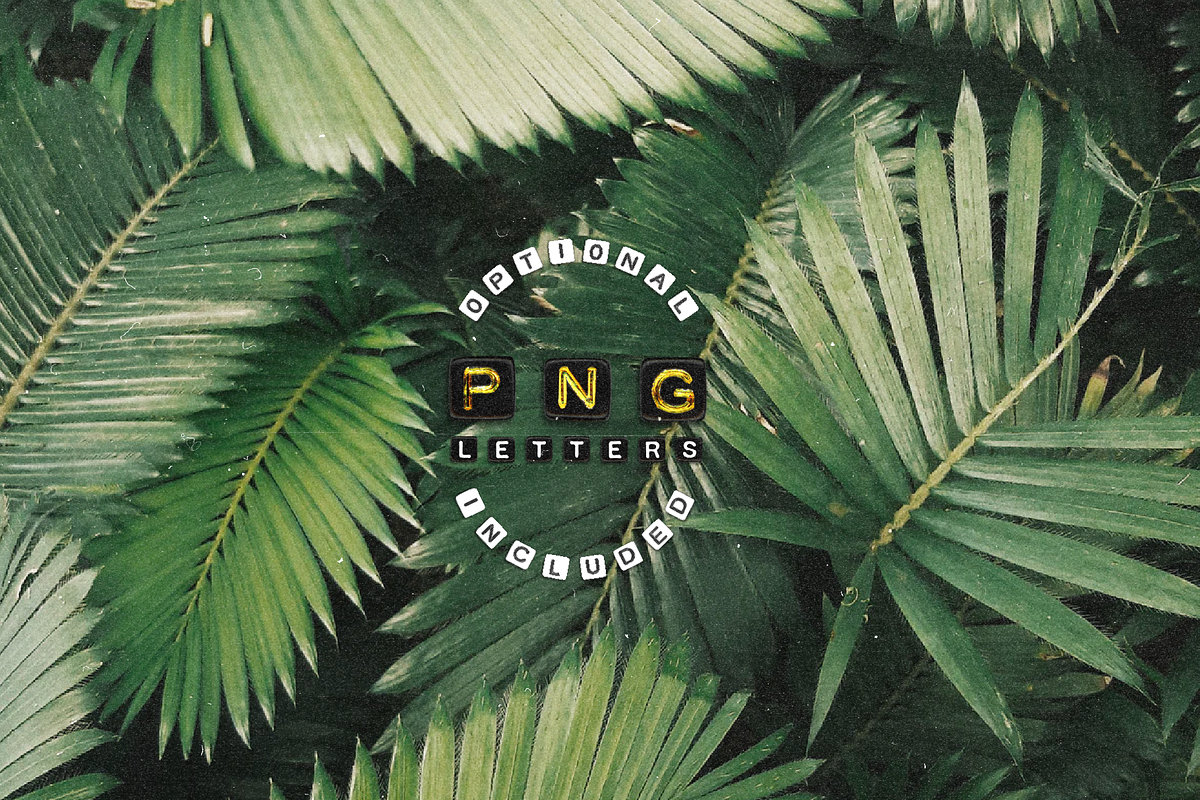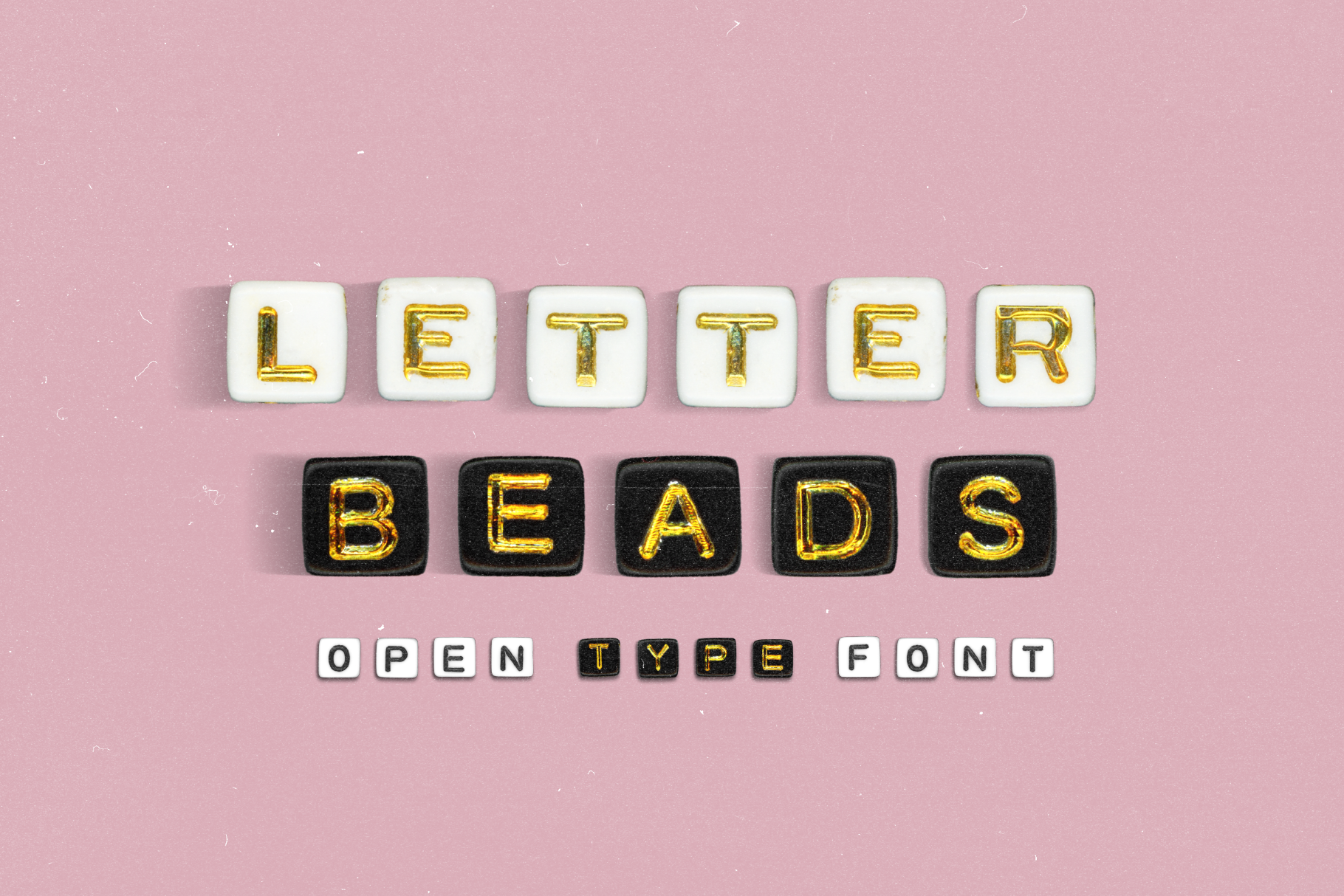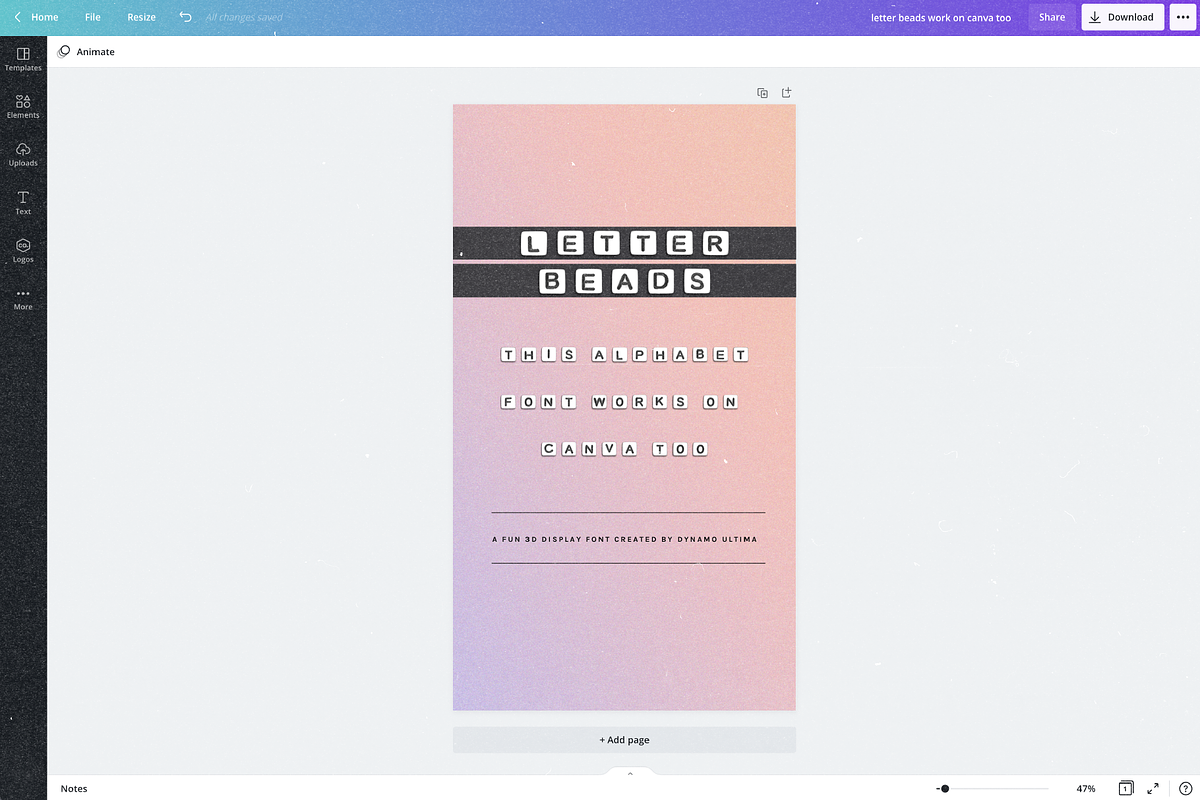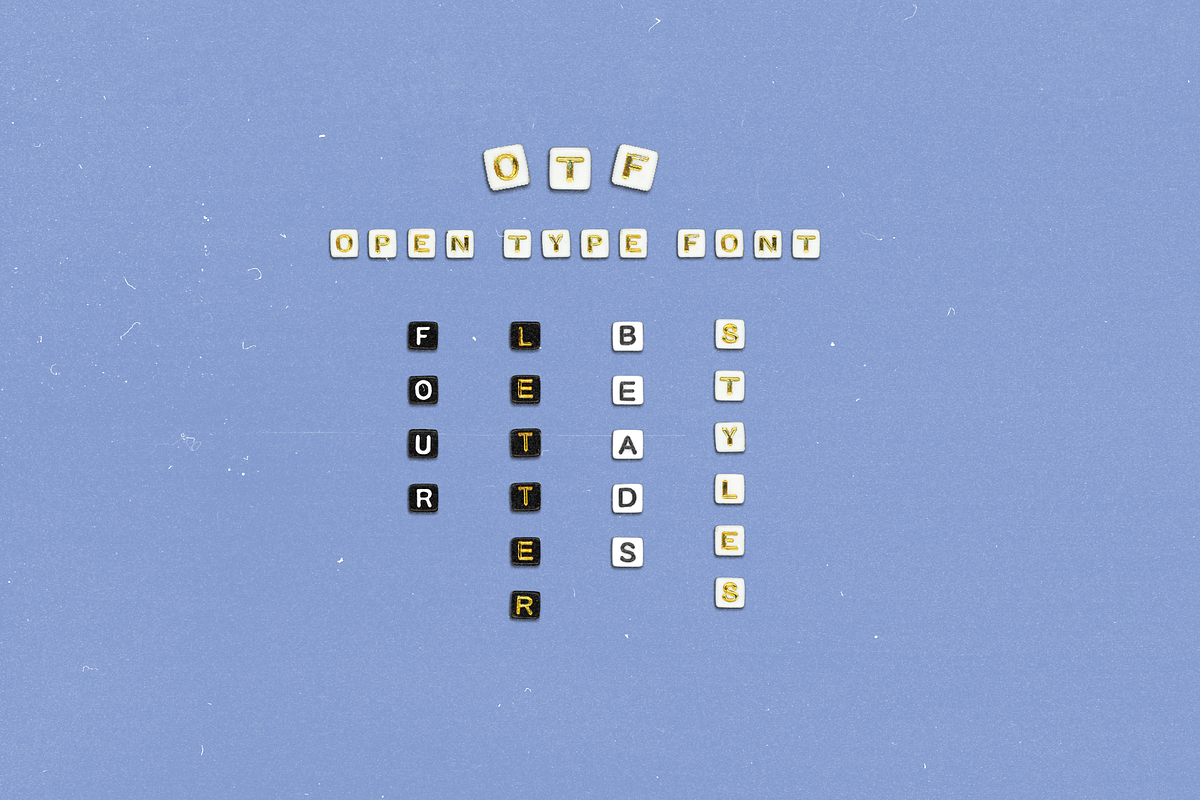
Letter Beads - Alphabet Bead Font
Use the shift key to preview gold beads
Add some realistic flair to your projects, make your Instagram posts more dynamic & create some fun new ways to express yourself with this Alphabet Letter Font Set! Letter Beads is a handmade Alphabet Letter Bead Open Type Font that you can install on your computer or upload to Canva. We've scanned each individual letter in as well as added shadows to give it a 3D effect. This will add dazzling display text to your Instagram posts, posters, book covers, packaging & more!
If you want to customize this font even further, use the PNG Letterbeads to add your own custom shadows. This makes it so that you are able to adjust the angle of the beads or put them in an arc or different shapes. See the images above for an example.